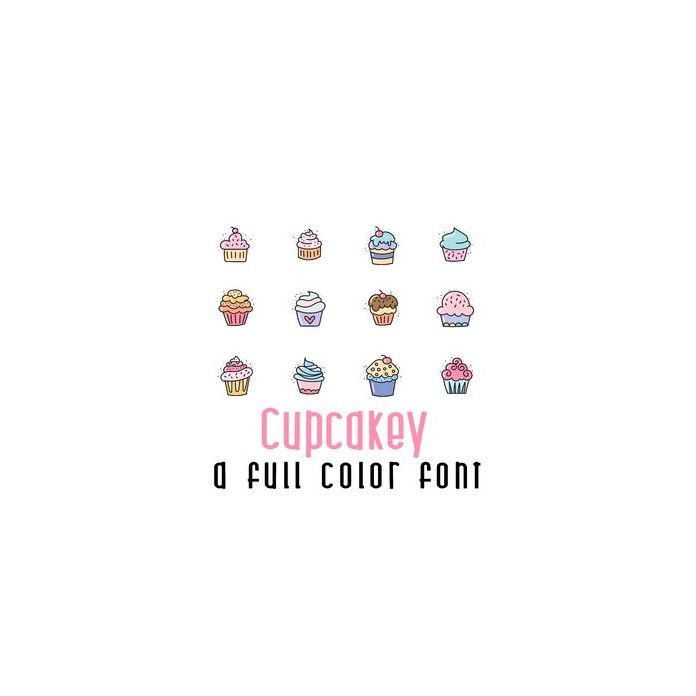
This adorable full-color doodlebat font features 26 fun and different cupcakes. Perfect for cards, crafts, gifts, decor, scrapbook pages, planner stickers, and more!